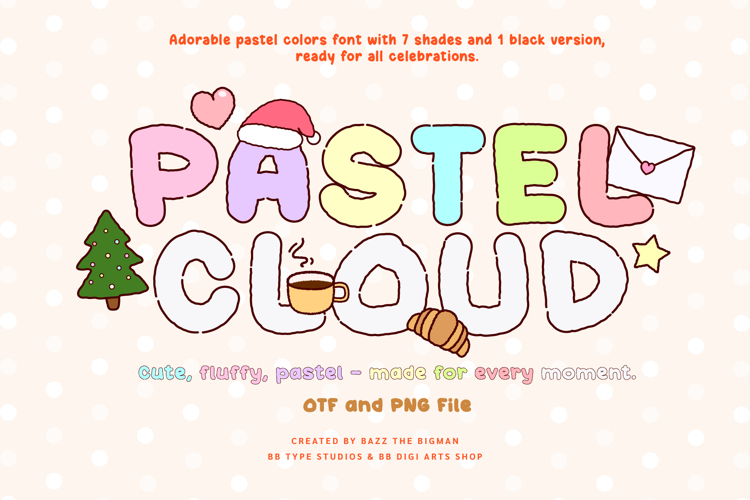
Pastel Cloud
Pastel Cloud is an adorable fluffy hand-drawn font designed to bring soft pastel charm to your creative projects.
This font comes with 7 lovely pastel color styles plus 1 clean black regular version, making it perfect for both cute and simple designs.
From Christmas and Valentine’s Day to Easter, birthdays, café branding, packaging, stickers, and t-shirts, Pastel Cloud is a versatile font made for every season and every moment.
✨ Features
- 7 pastel color styles
- 1 black regular version
- Uppercase & lowercase letters
- Numbers & basic punctuation
- Fun, fluffy, hand-drawn style
🎨 Perfect for
- Holiday & seasonal designs
- Kids projects & cute illustrations
- Café, bakery & food branding
- Stickers, cards & invitations
- T-shirt, merch & print-on-demand
- Social media graphics & packaging
If you’re looking for a cute pastel font that works all year round, Pastel Cloud is ready to brighten your designs.